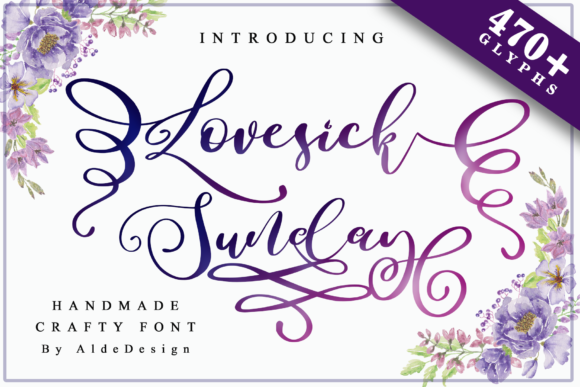
Enter the enchanting world of Lovesick Sunday, a captivating script font that dances across your screen like a love letter penned by the hand of Cupid himself. With its delicate strokes and elegant curves, Lovesick Sunday is the perfect choice for those seeking a font that exudes romance, passion, and timeless beauty.
Immerse yourself in a symphony of flowing lines and graceful flourishes as Lovesick Sunday weaves its magic, whether gracing the pages of your wedding invitations or adding a touch of elegance to your heartfelt thank-you cards. Let this font carry your words with a touch of charm and sophistication, capturing the essence of your love story in every letter.
Picture the sheer joy of your loved one's eyes as they read your heartfelt sentiments, each word beautifully adorned with the enchanting allure of Lovesick Sunday. Its delicate strokes dance across the page, creating an intimate connection that transcends mere words.
Lovesick Sunday is not merely a font; it is an artistic expression of love, a visual symphony that transforms your words into works of art. Whether you're a seasoned designer seeking the perfect font to elevate your creations or a hopeless romantic looking to add a touch of magic to your personal correspondence, Lovesick Sunday awaits you.
So, dear friend, open your heart to the allure of Lovesick Sunday. Let its romantic charm captivate your imagination and allow your words to blossom with newfound beauty. Embrace the art of handwritten elegance and let Lovesick Sunday be your muse, guiding you towards love, happiness, and creative fulfillment.